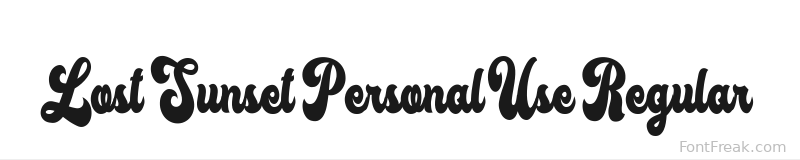
Lost Sunset Personal Use Regular
Lost Sunset Personal Use Regular by Billy Argel Fonts is a captivating display font that beautifully combines a whimsical aesthetic with a modern flair. This decorative typeface features bold, rounded strokes that exude a sense of playfulness, making it ideal for various creative projects. The stroke weight is consistent yet varied, lending a dynamic quality to the text, while the generous spacing ensures clarity and legibility. The font's unique curves and playful embellishments evoke feelings of warmth and nostalgia, reminiscent of serene sunsets.
This font is perfect for a range of applications, particularly in the realms of personal and artistic expression. It shines in wedding invitations, where its charming style can add a touch of elegance to the big day. Additionally, Lost Sunset Personal Use Regular works wonderfully for movie posters, capturing attention with its eye-catching design. Restaurant menus can also benefit from this font, as it can convey a relaxed and inviting atmosphere. Moreover, content creators looking to add personality to their branding will find this font a fantastic choice.
What sets Lost Sunset Personal Use Regular apart is its ability to blend charm with versatility. The font's distinctive character and inviting design make it a standout choice for anyone looking to infuse their work with a sense of creativity and warmth. With the Lost Sunset Personal Use Regular font free download, you can elevate your designs and leave a lasting impression on your audience.